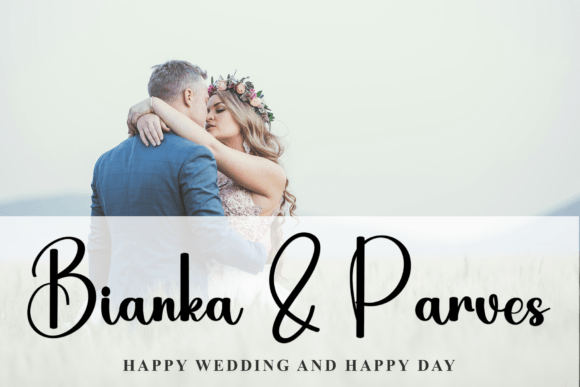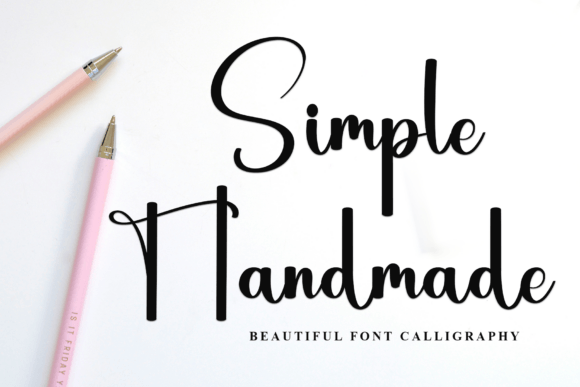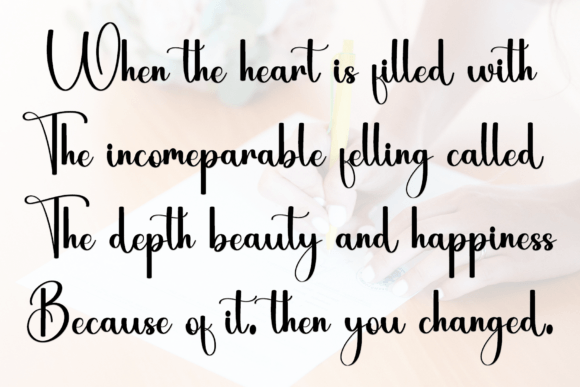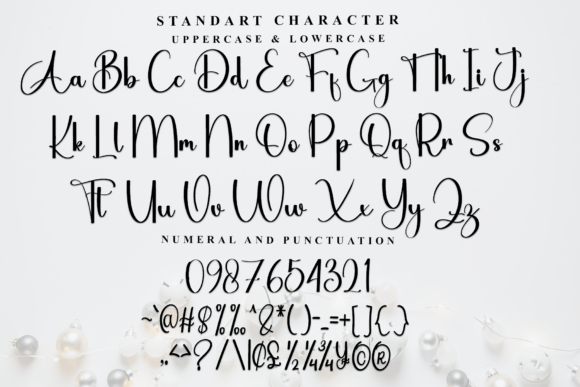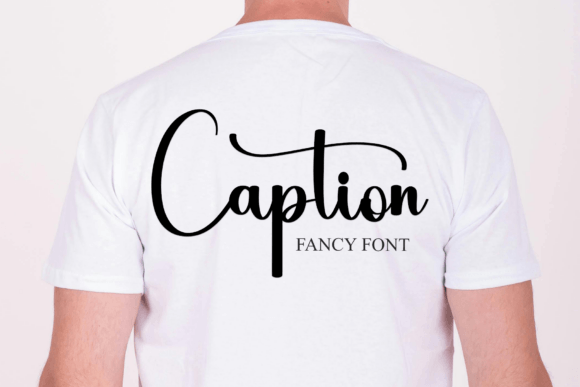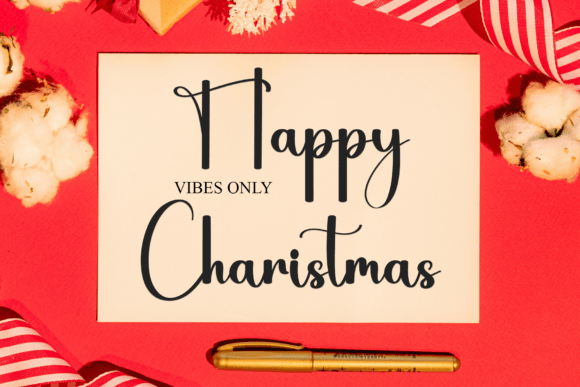
Introduction to Santhing Font
Have you ever stared at a blank canvas, waiting for inspiration to strike? For designers, this moment is all too familiar. The search for the perfect font can be overwhelming, but what if I told you there’s a font that can transport your design to a new level of elegance and sophistication?
Enter the Santhing Font, a stunning handwritten script font that exudes charm and personality. Its fluid strokes and natural flow create a captivating look that’s perfect for adding a personal touch to invitations, branding, or social media. Whether you’re working on a creative project or need a design resource, the Santhing Font is sure to impress.
Key Features of Santhing Font
- High-quality design resource ideal for creative projects, with a clean and modern aesthetic.
- Unique characteristic: Santhing Font features a distinctive blend of geometric and organic elements, giving it a unique visual appeal that sets it apart from other fonts.
- Perfect for use in logos, branding materials, and other design elements where a modern and sophisticated look is desired.
Honest Review: Santhing Font
As a designer, I’m always on the lookout for high-quality design resources to enhance my creative projects. Recently, I stumbled upon the Santhing Font, and I must say, it’s been a game-changer for my work. ✨
The Santhing Font is a free download that offers a unique and modern design aesthetic, perfect for any project that requires a touch of sophistication. The font’s clean lines and minimalist style make it an excellent choice for creating visually appealing designs, especially when used with a transparent background. ✨
- High-quality design aesthetic
- Perfect for modern and minimalist designs
- Not suitable for projects requiring a bold or dramatic font style
- May not be as versatile as other font options
- Some users may find the font too plain
Overall, I’m thoroughly impressed with the Santhing Font. It’s a great addition to any designer’s toolkit, and I would highly recommend it for any creative project that requires a touch of elegance and sophistication. ⚠️ Just be aware of its limitations, and use it accordingly.
To get the most out of the Santhing Font, use it for headings, titles, or any text element that requires a high-quality, modern look.
Common use cases include:
– Designing business cards and brochures
– Creating social media graphics and ads
– Developing a brand identity